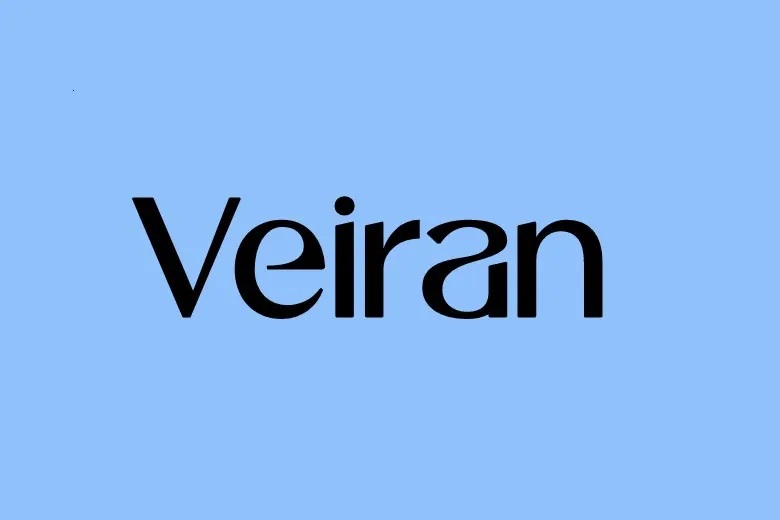
Veiran Font
Veiran is a new elegant sans serif typeface for creative people who aren’t afraid to make a bold and sophisticated statement. With its well-proportioned letterforms, clean lines and curving sportiness, Veiran is ideal for logos, branding, packaging, social media posts, and editorial work.
Whether you’re working on a fashion project, modern website, or a luxury brand, Veiran adds an element of class and minimalism to your typography. Its classic design makes it a versatile font for use in both digital and print projects.
Veiran Sans Serif Font